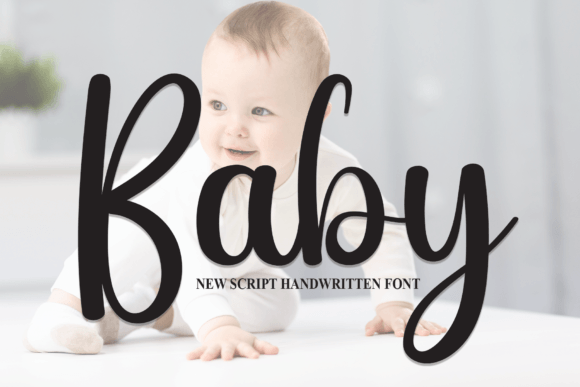
The Sweet Allure of Baby Font
As a designer, you’ve probably experienced that magical moment when a project comes together and you feel like you’ve captured the essence of your client’s vision. For me, it was a wedding invitation design that required a touch of whimsy and romance. I knew I needed a font that would convey the joy and love that comes with a new beginning.
That’s when I discovered Baby Font, a sweet and smooth handwritten font that exudes warmth and personality. This adorable font is perfect for creating designs that need a romantic and personal touch, making it ideal for wedding invitations, cards, and other special occasions.
What makes Baby Font so valuable to designers is its unique ability to add a touch of elegance and playfulness to any project. Its versatility and charm make it a go-to choice for those looking to create designs that truly stand out.
Baby Font Key Features
- Unique Characteristics: Designed specifically for use in children’s products, including toys, nursery decor, and children’s clothing
- Font Width: Offers a range of widths to accommodate different design needs, from condensed to expanded
Designer Review: Baby Font
When I first came across Baby Font, I was curious to see how a font designed for children’s books would fare outside of its intended use case. ✨ Here are some things that I think work well:
- The playful, cursive feel of Baby Font is perfect for titles and headings, adding a touch of whimsy to any design.
- The font’s varying line widths and subtle flair give it a unique, hand-drawn quality that’s engaging to look at.
- Baby Font comes with a wide range of ligatures and alternates, making it easy to create visually interesting text.
However, there are some limitations to keep in mind: ⚠️
- The font’s letterforms can be quite ornate, which may make it difficult to read in certain contexts, such as body text or in small sizes.
- The font’s lack of a bold weight may limit its use in designs where a clear, strong text is needed.
- The font’s playfulness may not be suitable for all audiences, particularly in more formal or professional contexts.
Overall, I think Baby Font is a great choice for designs where a touch of whimsy and personality is needed. It’s perfect for children’s books, greeting cards, and other applications where a playful feel is a plus. However, it may not be the best choice for more formal or professional designs.
Baby Font is ideal for creating a playful and whimsical atmosphere in designs such as:
- Baby product branding
- Kid-friendly websites and apps
For best results, use Baby Font in combination with other playful fonts and illustrations to create a cohesive and engaging design.
Alternatives to Baby Font for Designers
Baby Font, also known as Apple Chancery, is a beautiful script font that is often used for invitations, watermarks, and other creative projects. However, it may not be the best choice for every project. Here are a few alternatives that designers can consider:
Playfair Display is an elegant, high-end serif font that is perfect for luxury brands, weddings, and other high-end projects. It is more formal than Baby Font and has a more sophisticated feel. Use it for projects where you need to convey a sense of luxury and sophistication.
Great Vibes is a modern, script font that is similar to Baby Font but has a more relaxed and casual feel. It is perfect for projects where you need to convey a sense of fun and playfulness. Use it for social media graphics, advertisements, and other projects where you need to grab attention.
Carolyna Pro is a beautiful, modern script font that is perfect for fashion brands, beauty products, and other creative projects. It has a more modern and trendy feel than Baby Font and is ideal for projects where you need to convey a sense of style and sophistication.
Lobster is a fun, casual script font that is perfect for projects where you need to convey a sense of playfulness and fun. It is more relaxed than Baby Font and has a more laid-back feel. Use it for social media graphics, advertisements, and other projects where you need to grab attention.